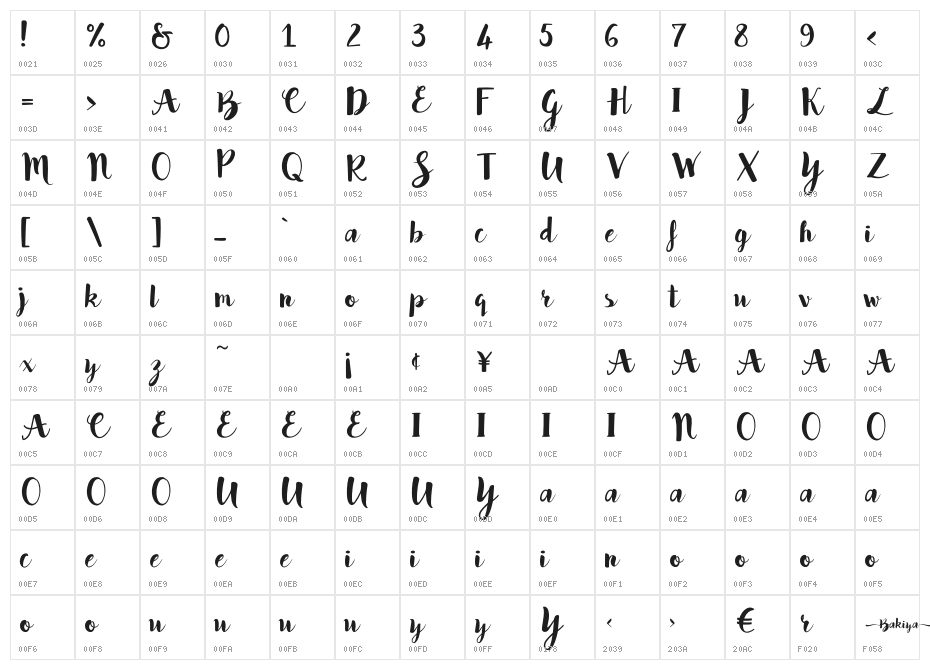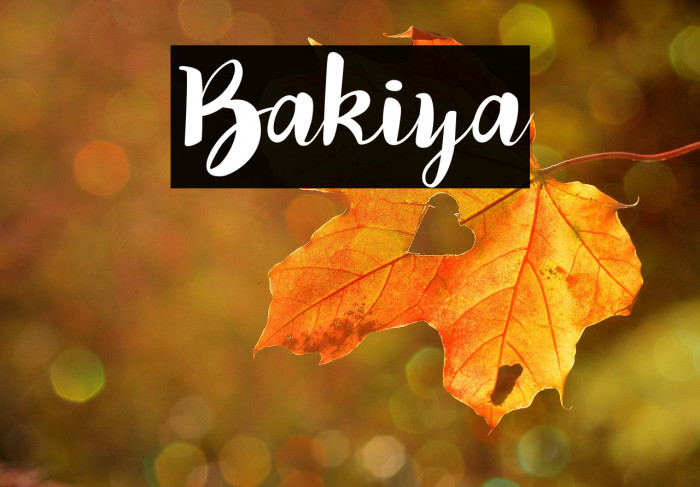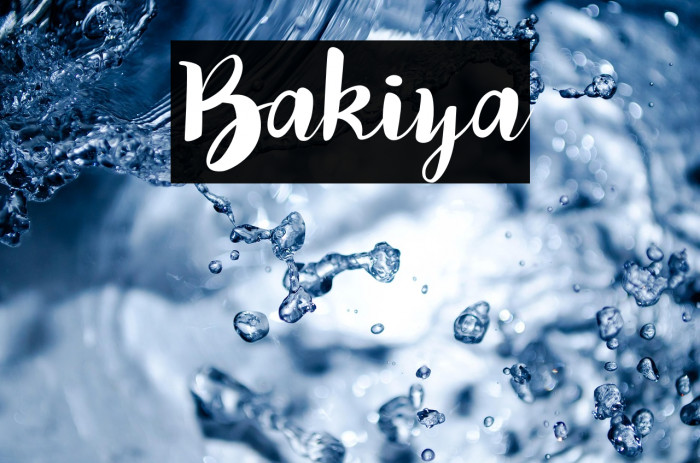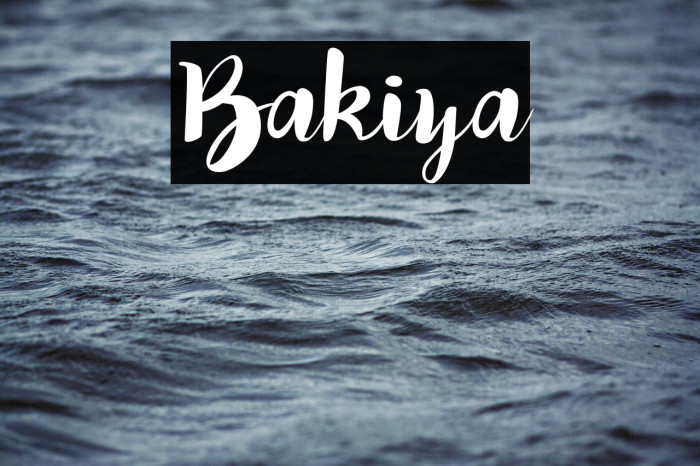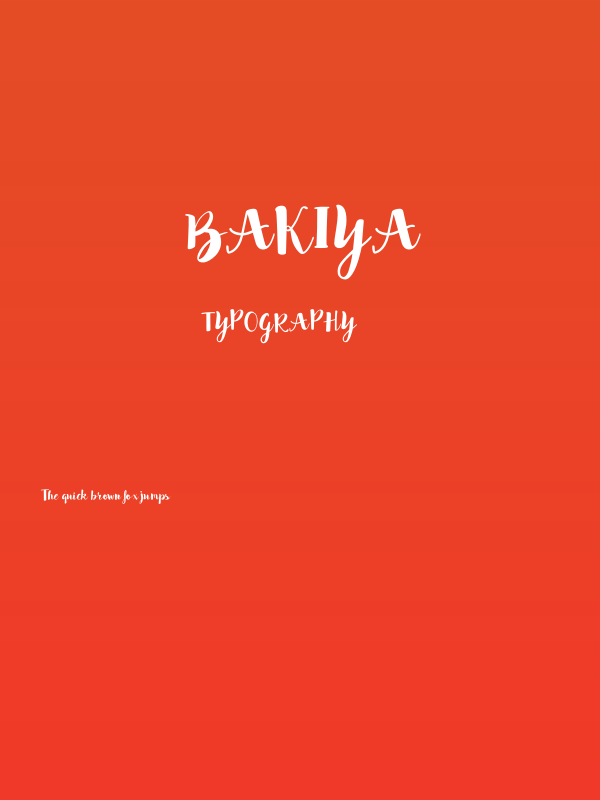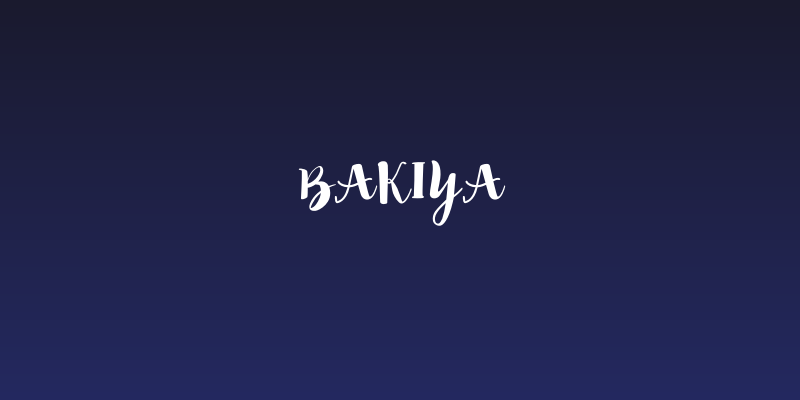
Bakiya Font
Bakiya Description
This font features a bold and expressive script style with a modern flair. The letters are connected, creating a fluid and dynamic appearance that is both elegant and playful. The uppercase characters are slightly more elaborate, with sweeping curves and flourishes that add a touch of sophistication. The lowercase letters maintain a consistent flow, enhancing readability while retaining the font's artistic charm. Numbers are clear and bold, matching the overall style. Special characters are included, maintaining the font's cohesive look. This font is ideal for projects that require a personal, handwritten touch.
| Proposed Projects | Ideal for wedding invitations, greeting cards, branding, and social media graphics. |